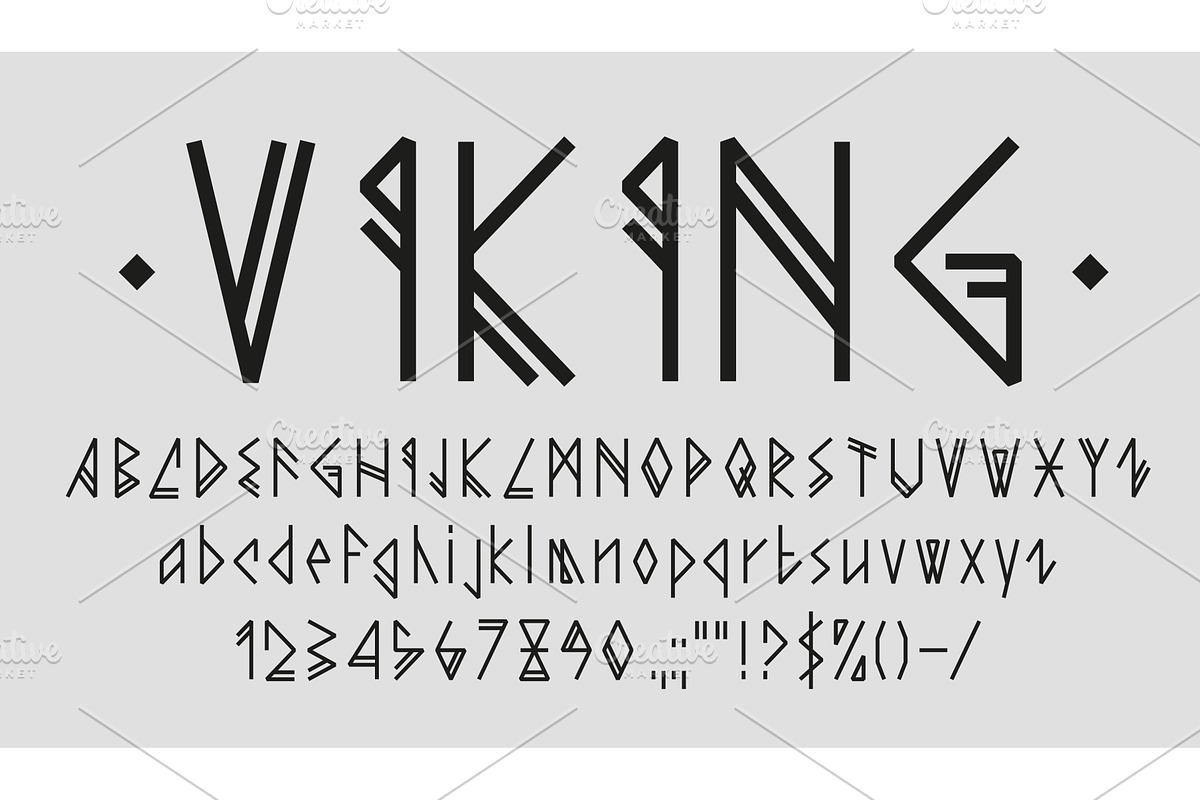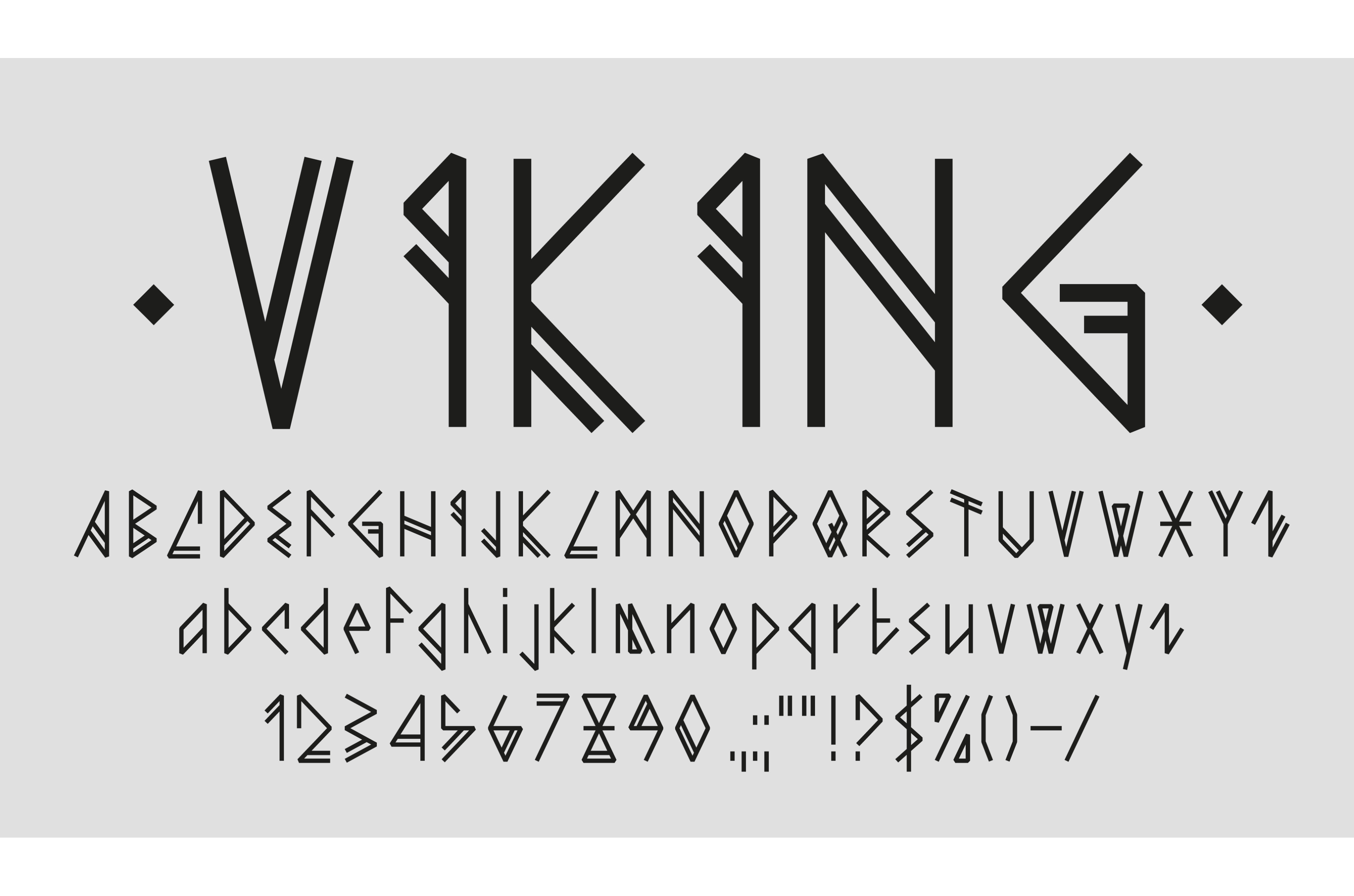
Viking font alphabet letters
Viking font alphabet letters, Nordic runes type or Scandinavian gothic typeface, vector signs. Medieval Viking warriors font or Norse German runic typography and Celtic tribal script typeset